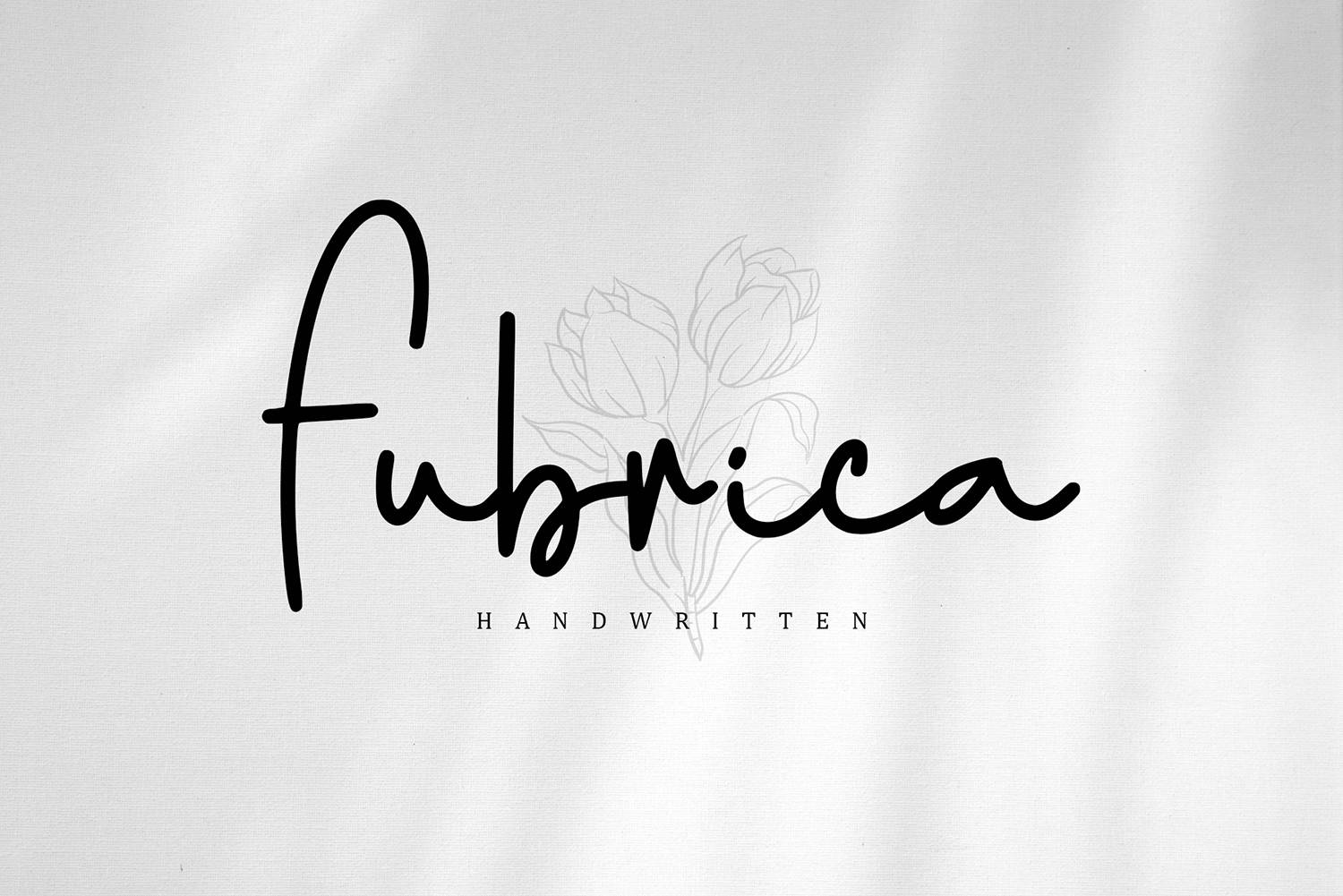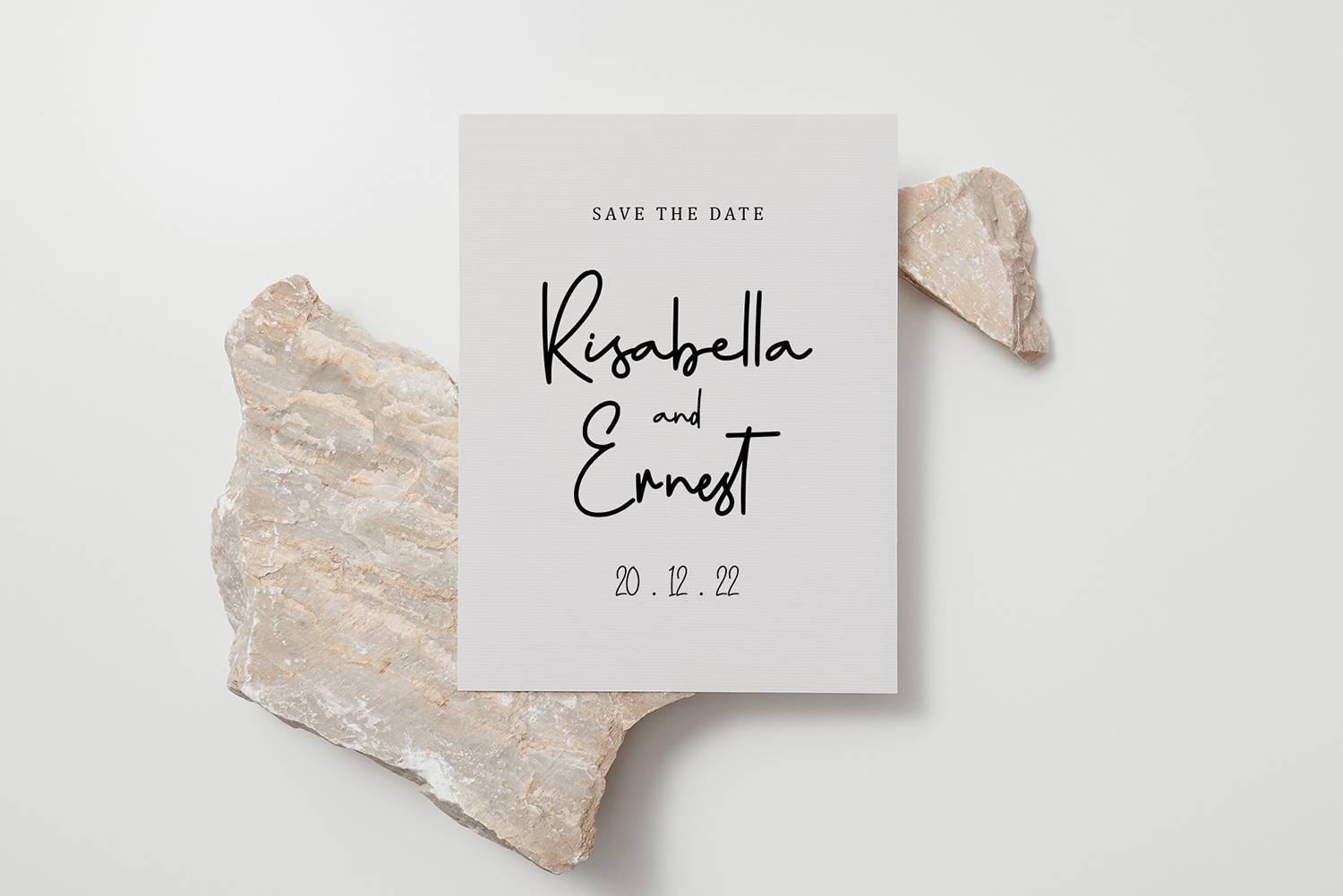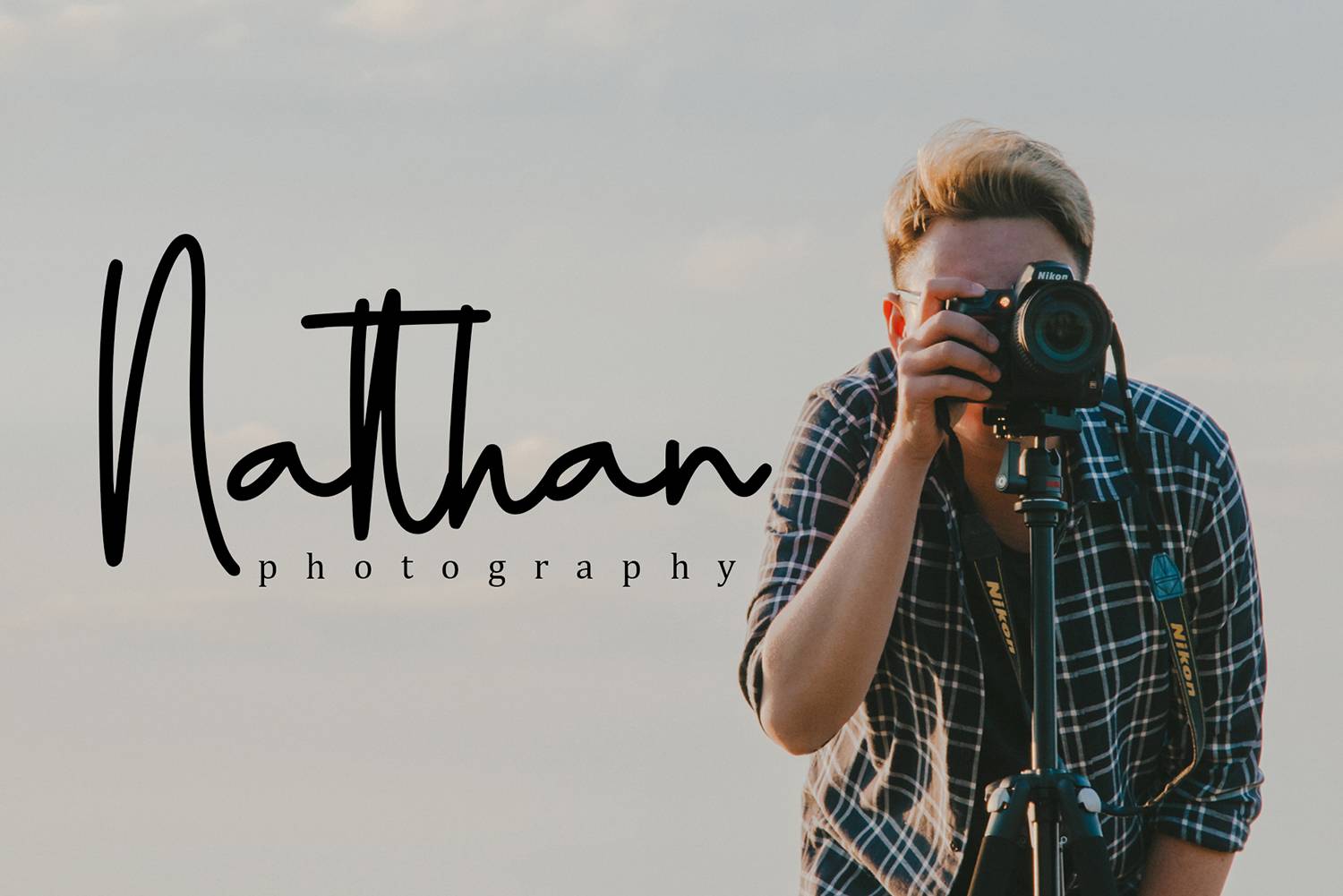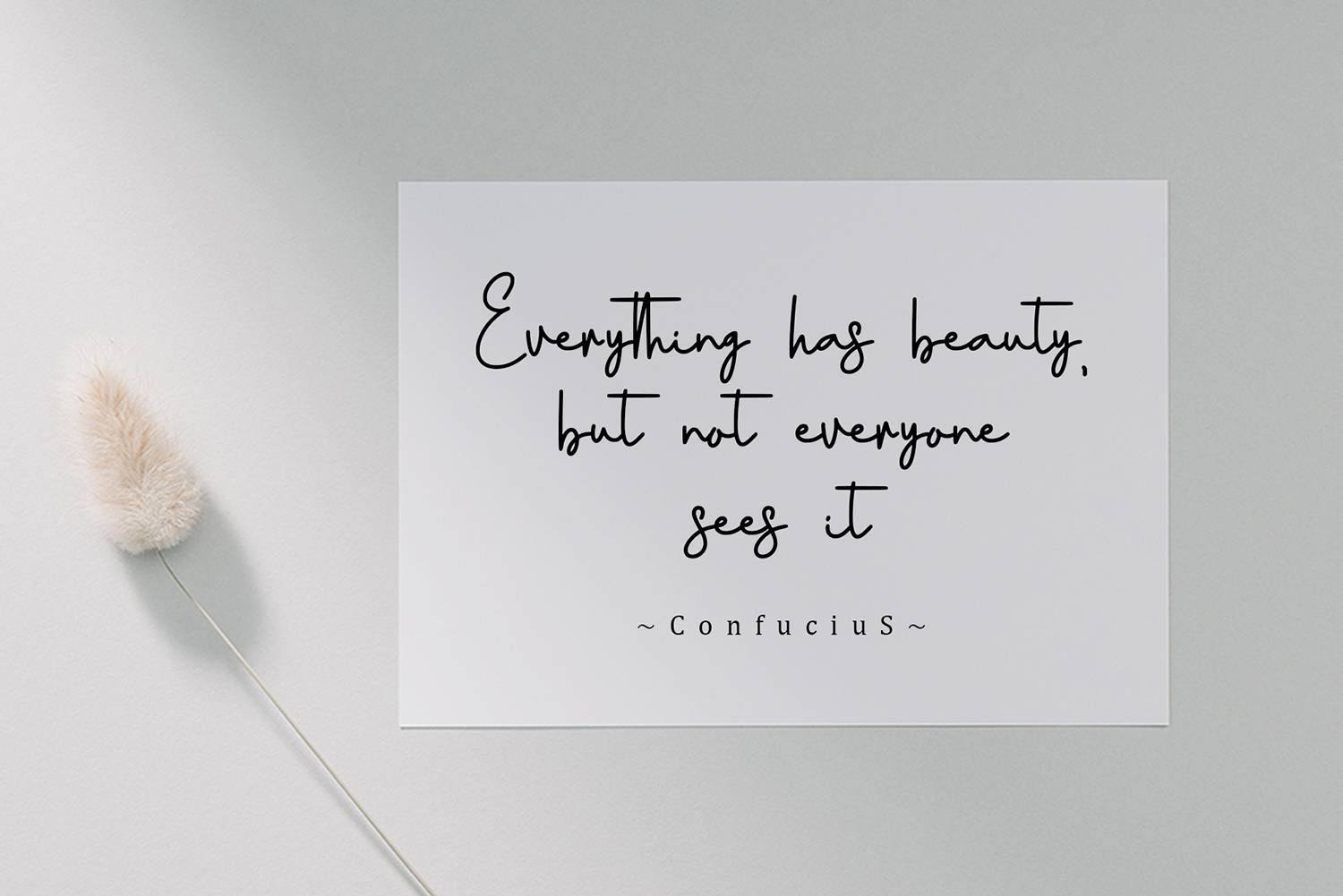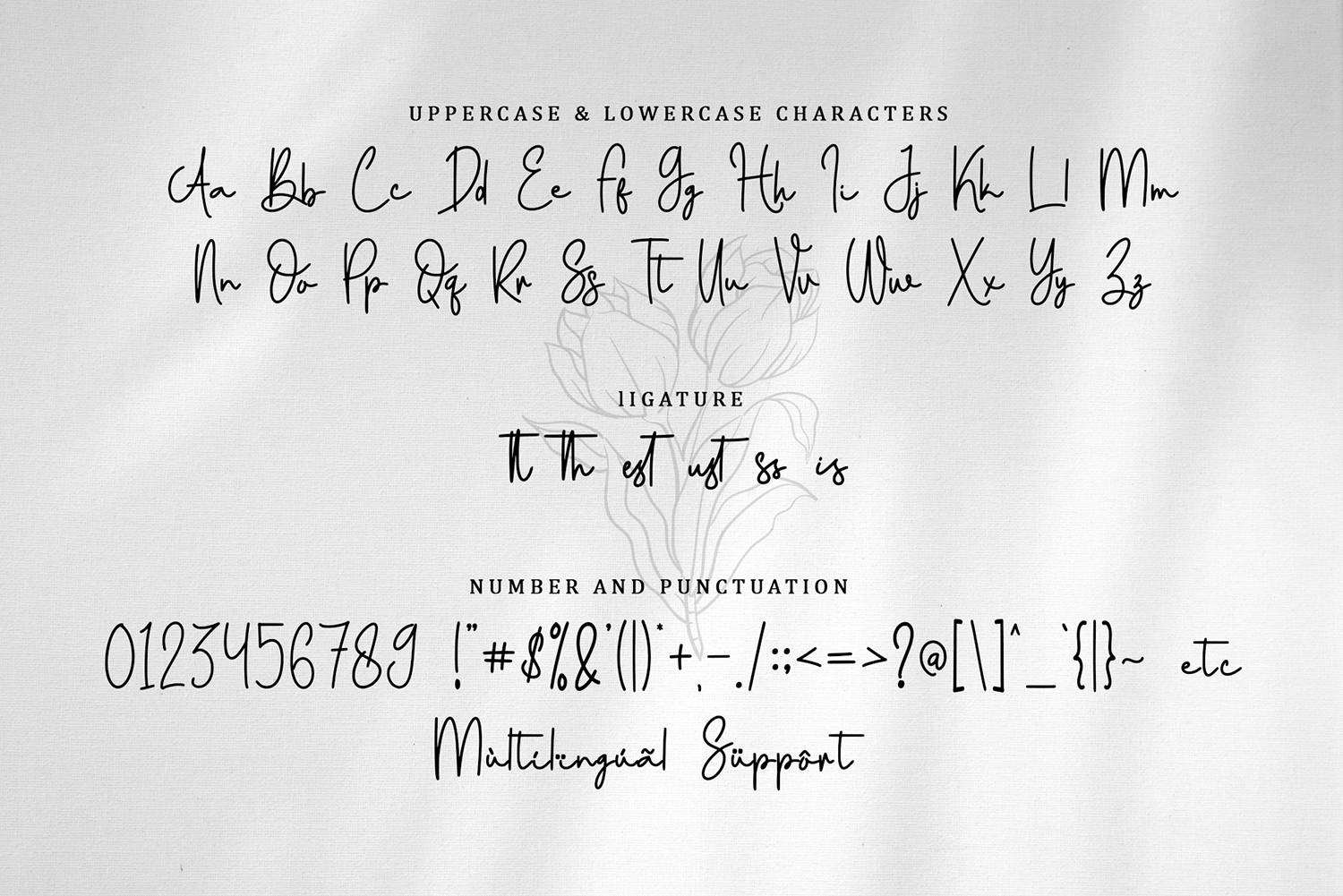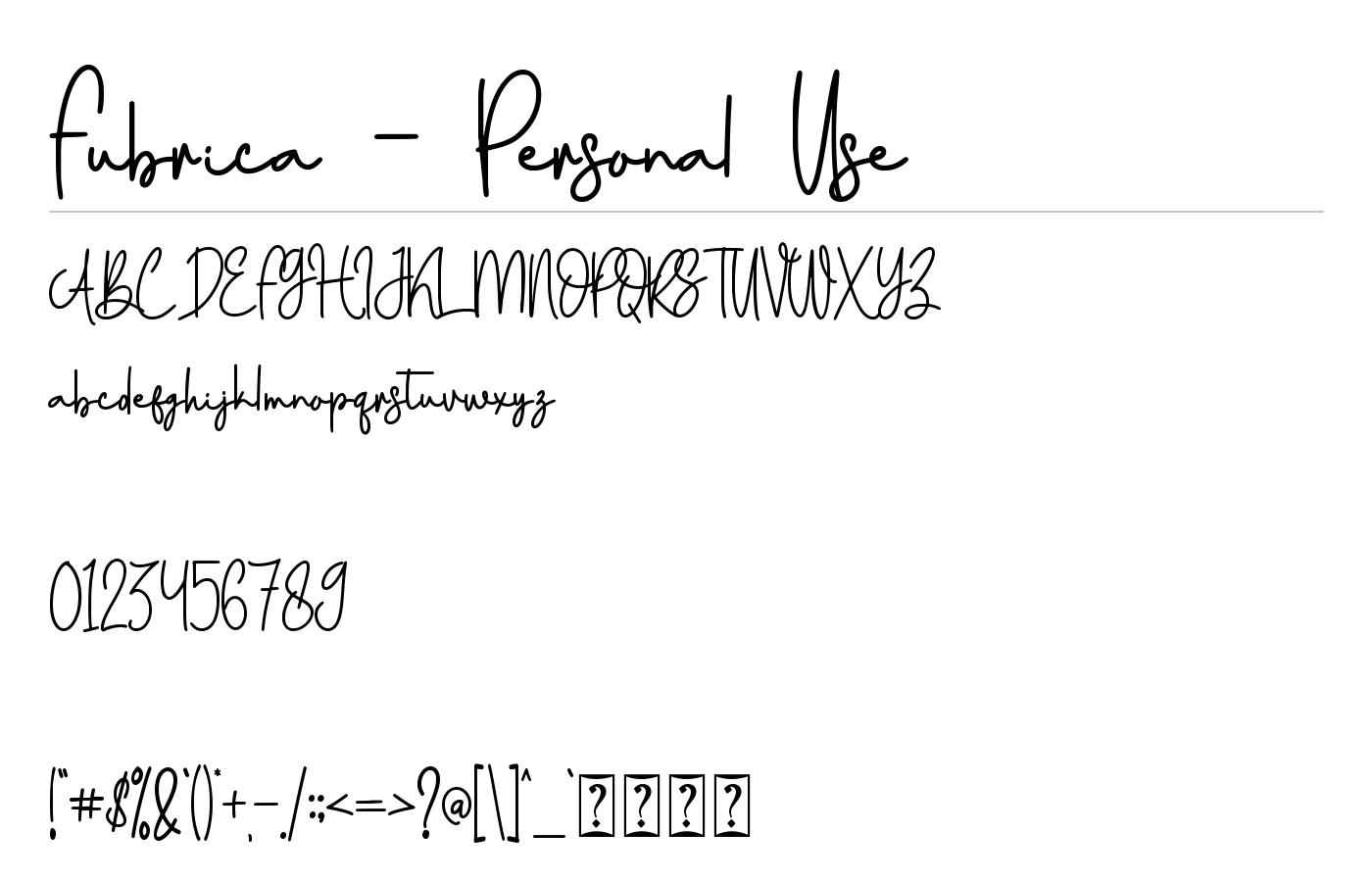
Fubrica is a playful and elegant handwritten script font with a casual, personal touch. Its tall, slender letterforms and delicate strokes give it a light, airy feel, making it ideal for invitations, branding, and creative projects that want a friendly yet stylish vibe. This font works well where a natural, handwritten look is desired to add warmth and personality.
Fubrica Font
About Fubrica Font